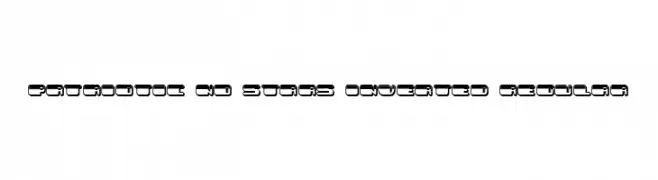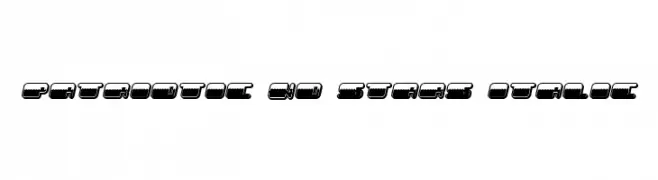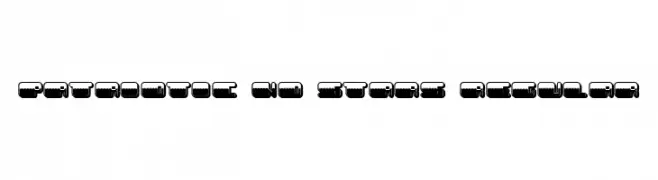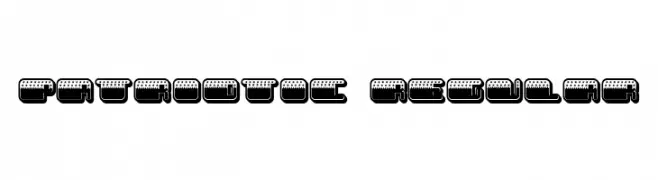
A bold, decorative font with a futuristic, textured design.
A bold, decorative font with a patriotic, italicized style and textured interior.
A bold, decorative font with a unique outline and filled design, perfect for striking headlines.
A bold, decorative font with a patriotic theme featuring stars and stripes.